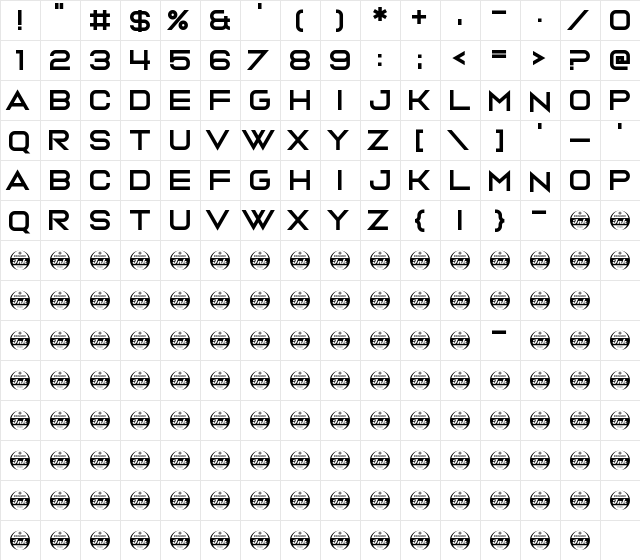
Ava Meridian Regular
| Designer | NAL |
Design Context for Ava Meridian Typeface
Ava Meridian is a composed and adaptable typeface that performs quietly and consistently across a wide range of design contexts.